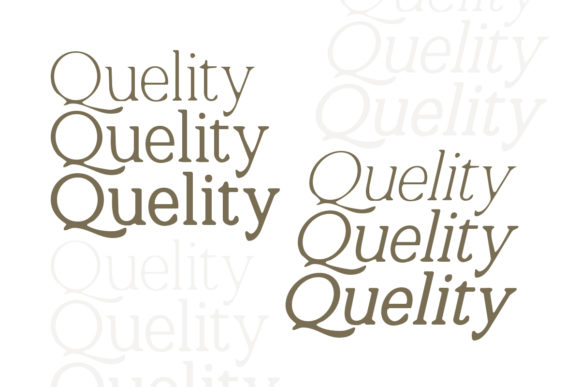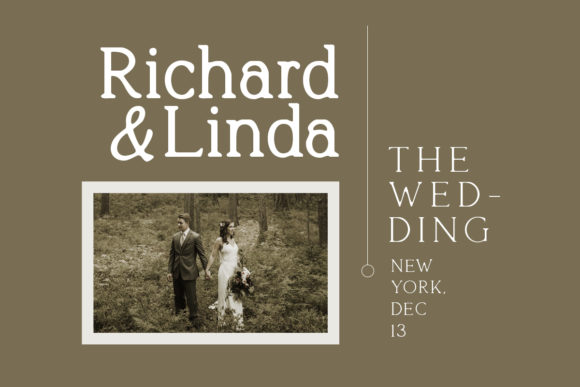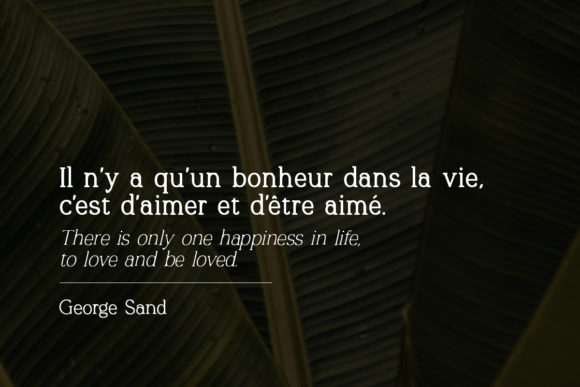
Introduction to Quelity Font
Have you ever found yourself stuck in the middle of a creative project, desperately searching for the perfect font to bring your vision to life? I know I have. That’s why I’m excited to introduce you to the Quelity Font, a simple and clean serif font that’s perfect for any design project.
Whether you’re working on a high-quality branding campaign, creating a stunning product packaging design, or crafting the perfect invitation, the Quelity Font is an invaluable resource for designers. Its versatility and clean design make it an ideal choice for a wide range of creative projects, from t-shirts to posters, and even logos. And the best part? It’s available for a free download, making it an accessible design resource for designers of all levels.
- Unique, creative style, perfect for adding a touch of personality to any project, from branding materials to digital art.
Honest Review: Quelity Font
As a designer, I’m always on the lookout for high quality fonts to elevate my creative projects. Recently, I stumbled upon the Quelity Font, and I’m excited to share my honest review.
What works well: ✨ The Quelity Font has a modern and sleek design that looks great on both digital and print materials. I particularly appreciate the transparent background, which makes it easy to customize and use in various design contexts.
- High quality: The font is well-designed and has a professional look that’s perfect for creative projects.
- Design resource: The Quelity Font is a valuable addition to any designer’s toolkit, offering a unique and versatile font option.
However, I do have a few limitations to mention: ⚠️ The font is only available in a few weights, which may limit its versatility for more complex designs. Additionally, the font’s licensing terms are a bit unclear, which may be a concern for commercial use.
Overall, I’m impressed with the Quelity Font and would recommend it to fellow designers looking for a high quality, free font option. While it may have some limitations, its modern design and transparent background make it a valuable addition to any design project.
To get the most out of Quelity Font, use it with a transparent background to create a clean and modern look. Experiment with different font sizes, colors, and styles to achieve the desired effect. You can also use the font in combination with other design resources to create a unique and high-quality design.
Quelity Font is ideal for a variety of design projects, including business cards, brochures, posters, and website design. It’s also a great resource for creating social media graphics, presentations, and documents. With its high-quality design and transparent background, Quelity Font is a versatile design resource that can be used in a range of creative projects.